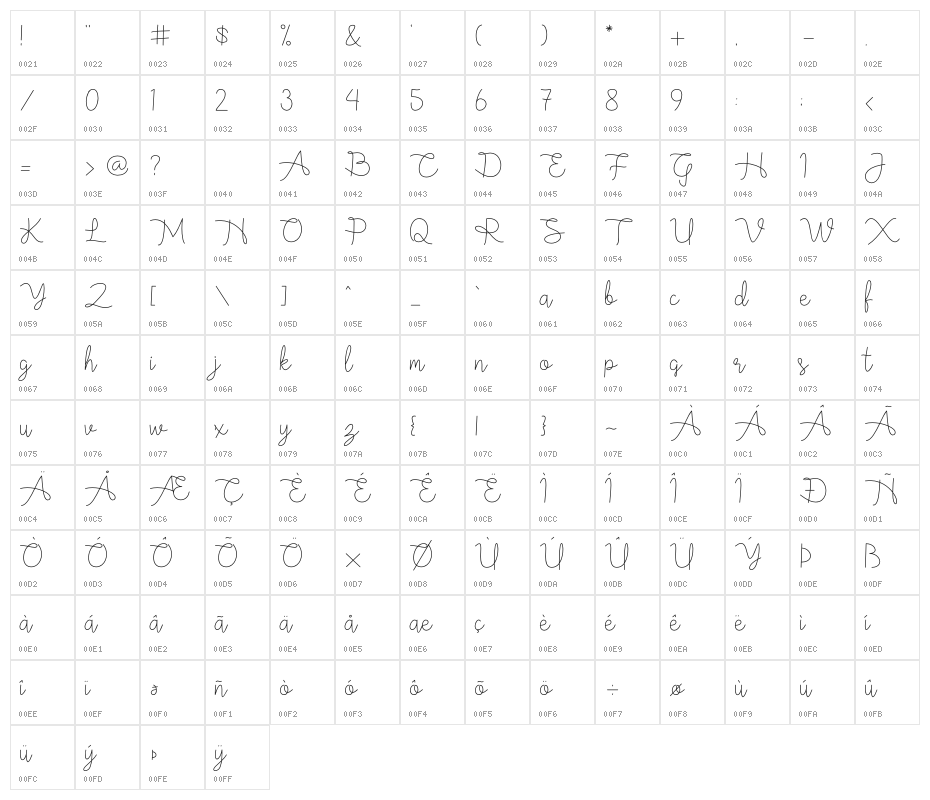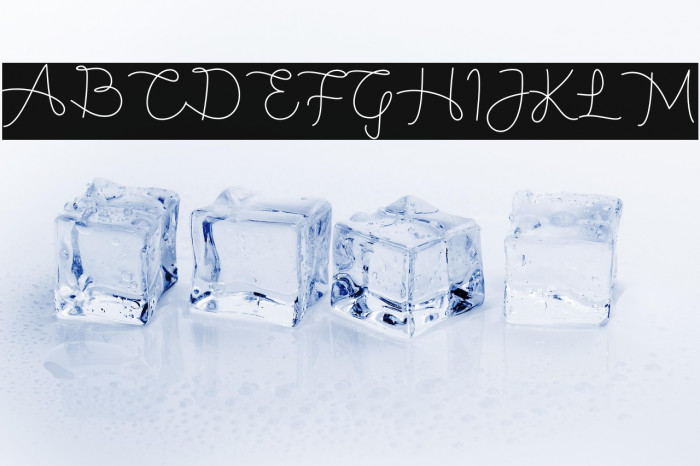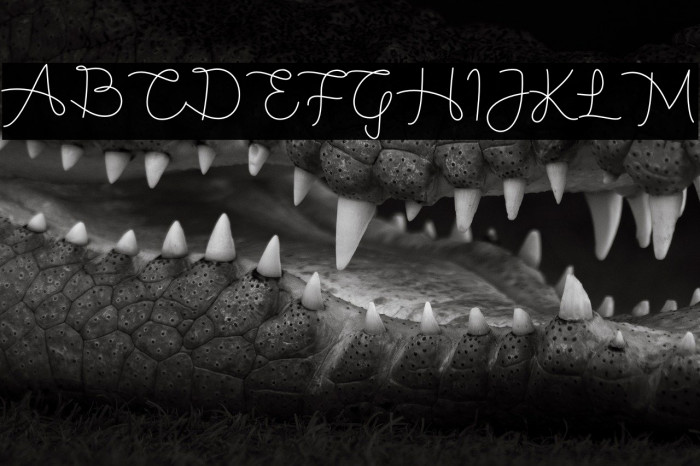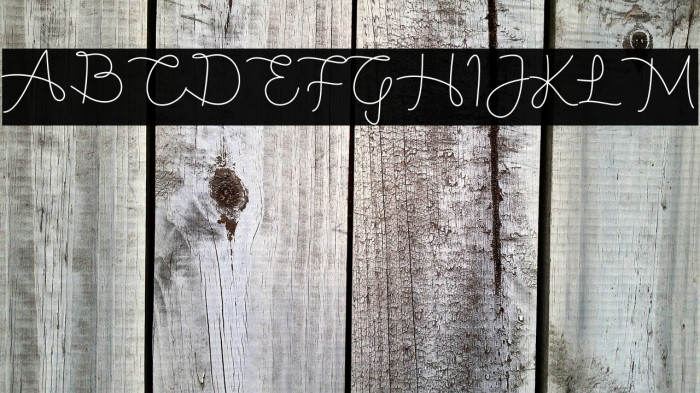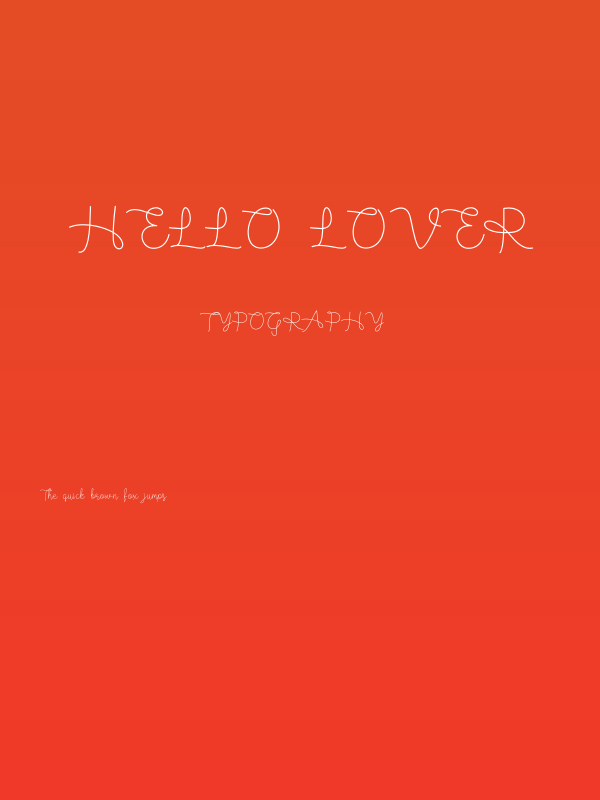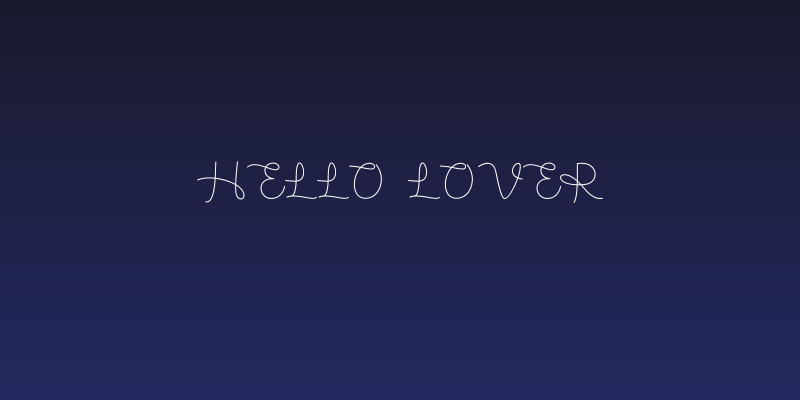
hello lover Font
hello lover Description
This font features a playful and elegant handwritten style, characterized by its flowing, cursive letterforms. The uppercase letters exhibit a whimsical touch with loops and curves, while the lowercase letters maintain a consistent and smooth flow. The numerals are clear and easy to read, complementing the overall aesthetic. Special characters are thoughtfully designed to match the font's style, making it versatile for various applications. The thin strokes and consistent line weight give it a delicate appearance, suitable for adding a personal touch to any project.